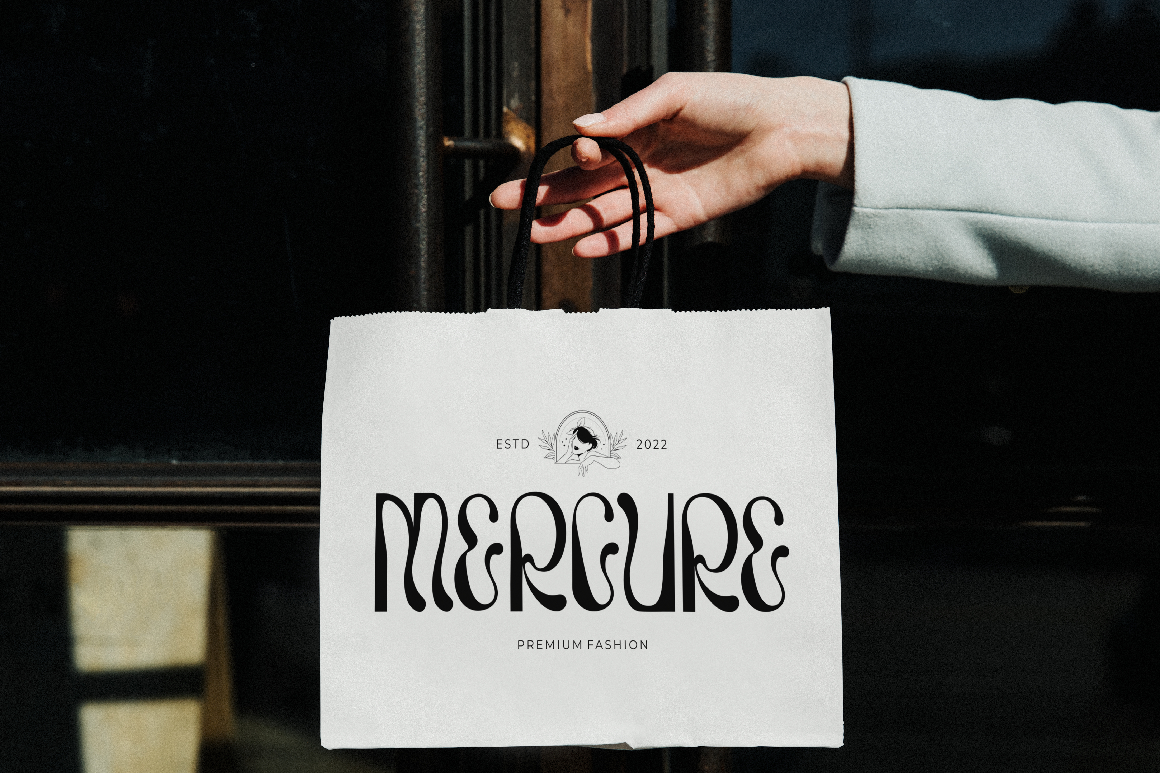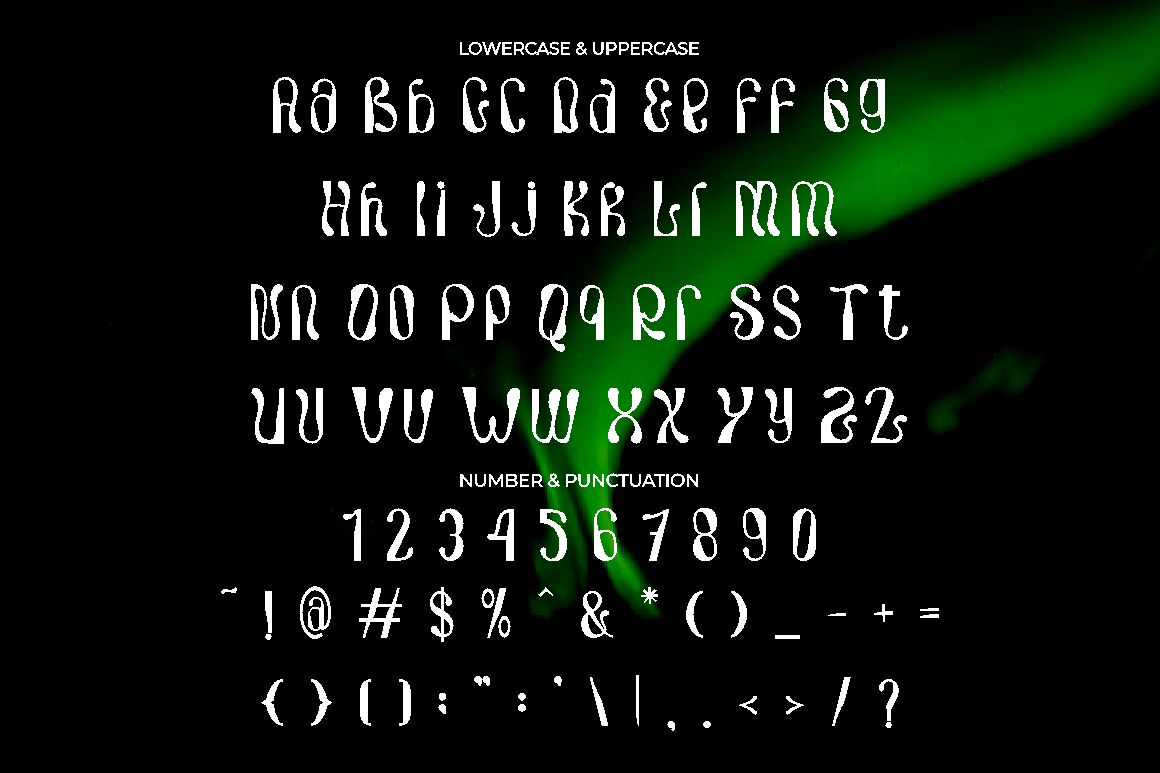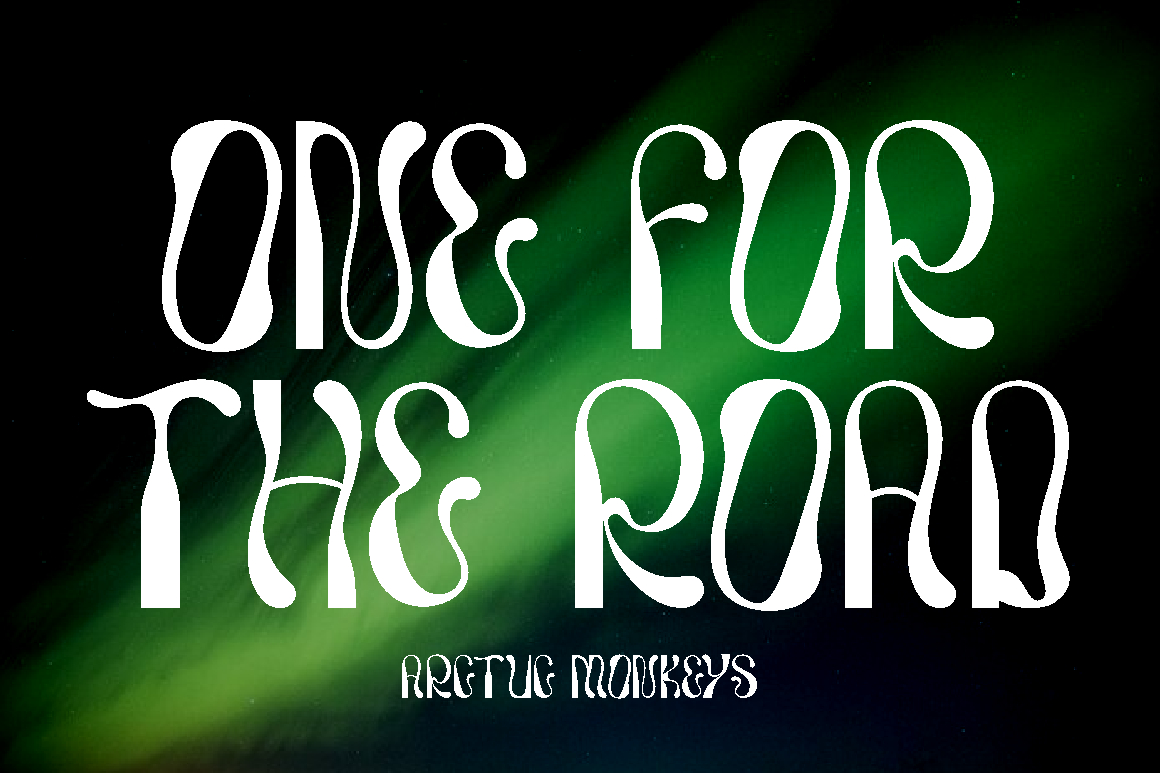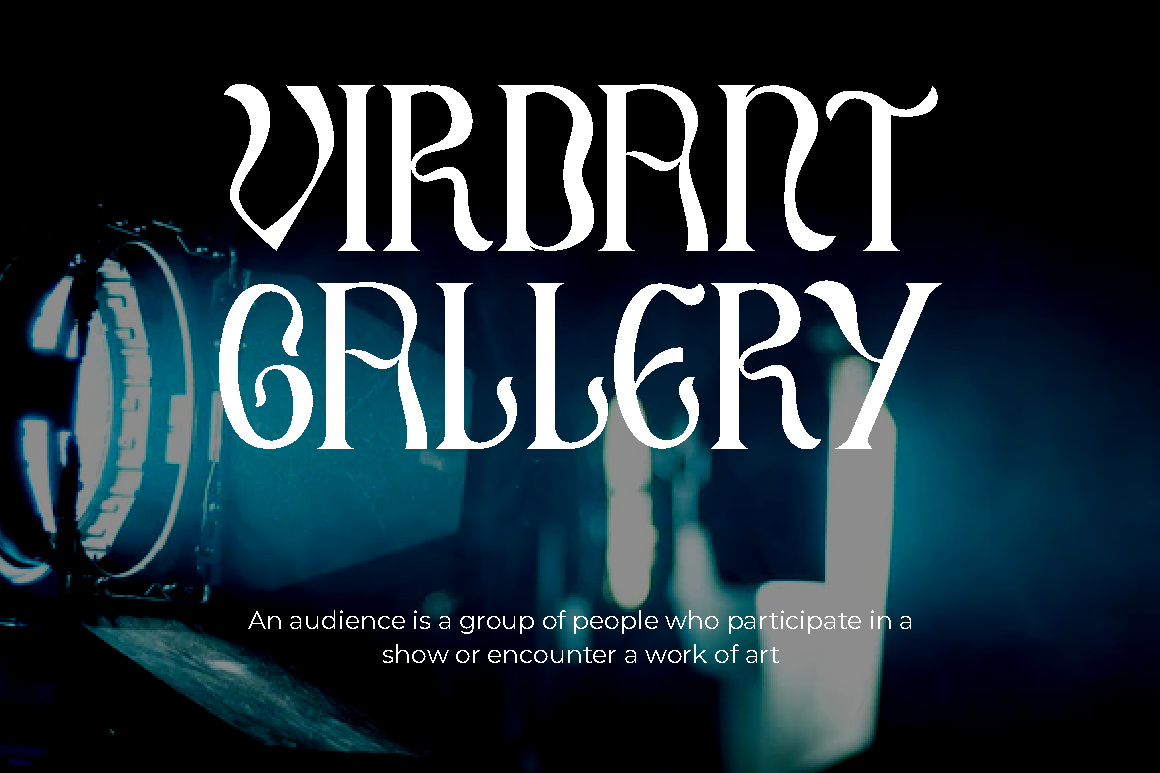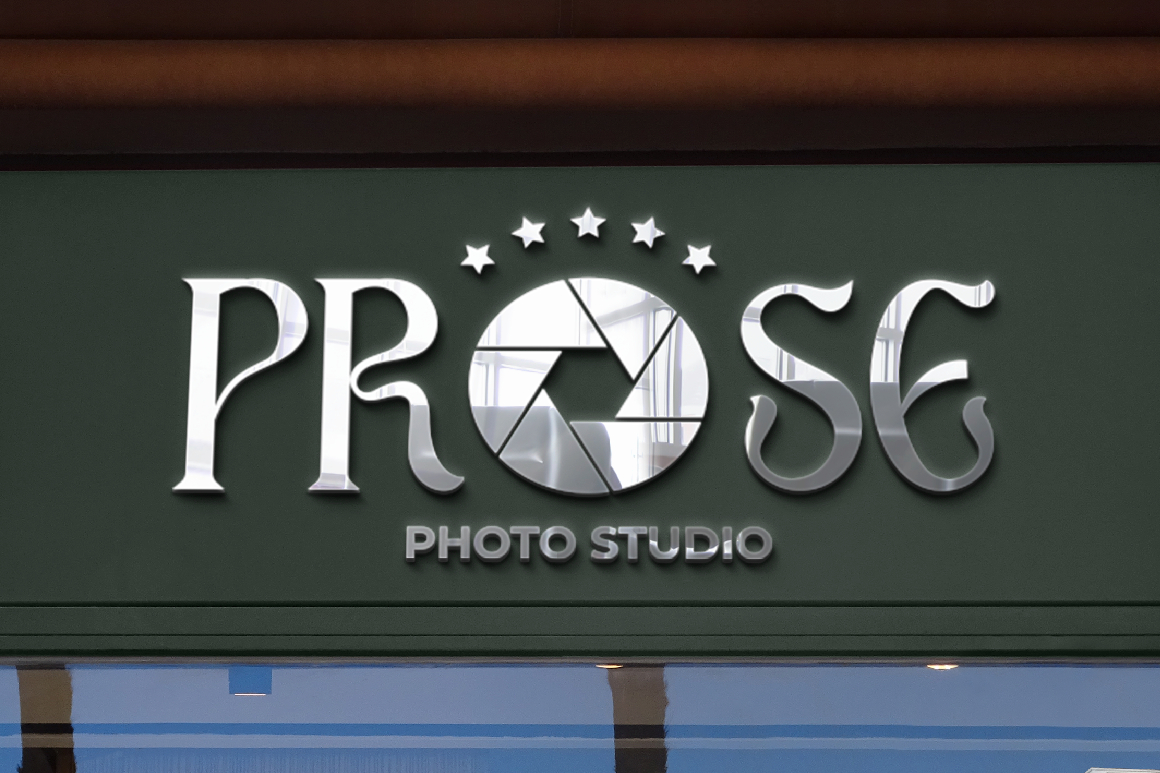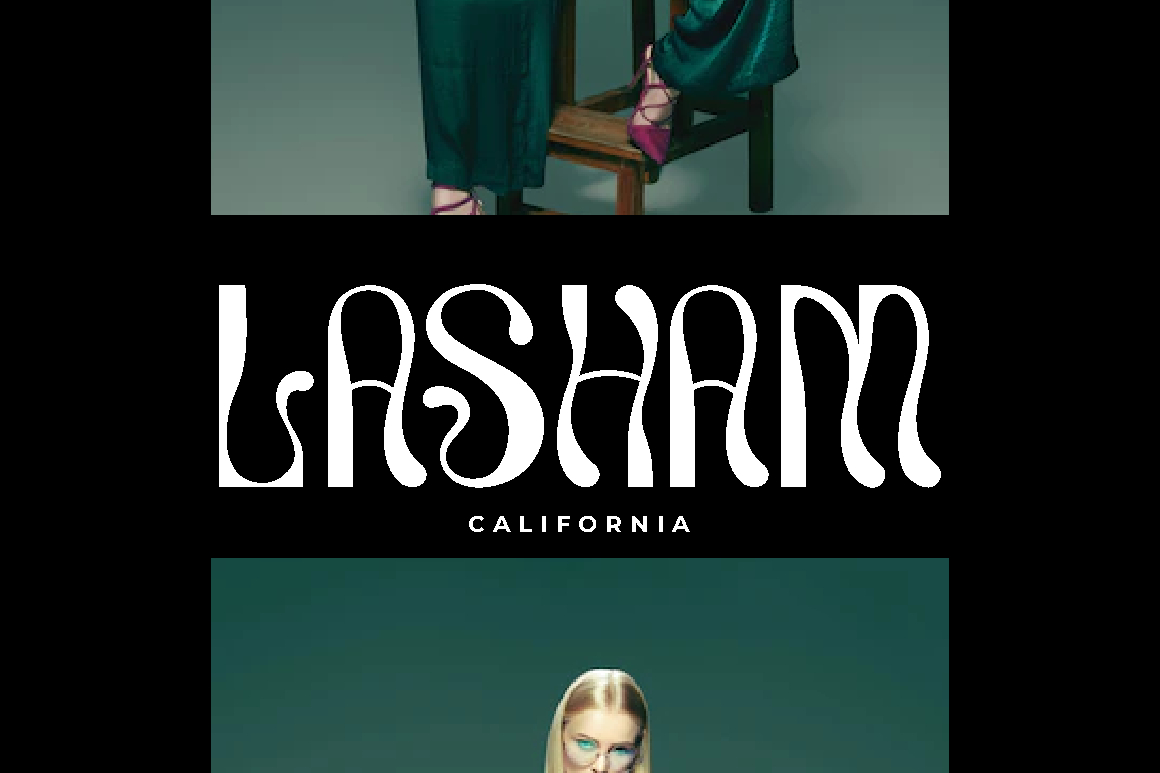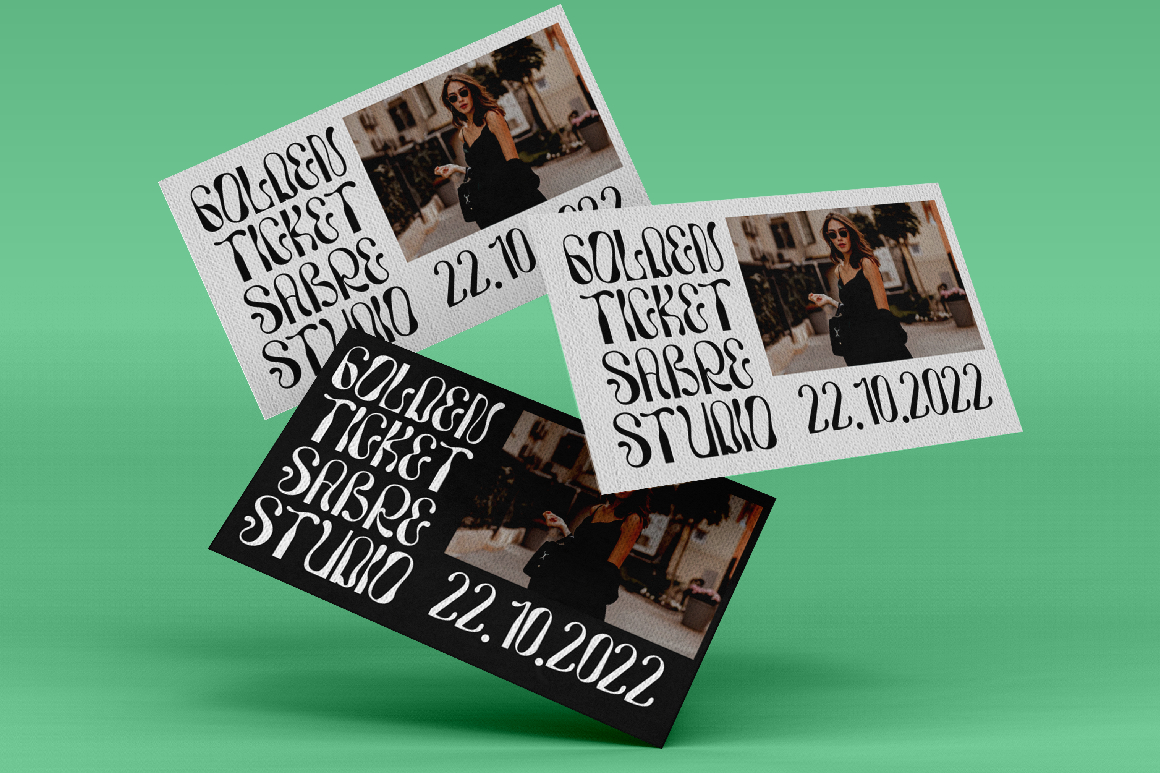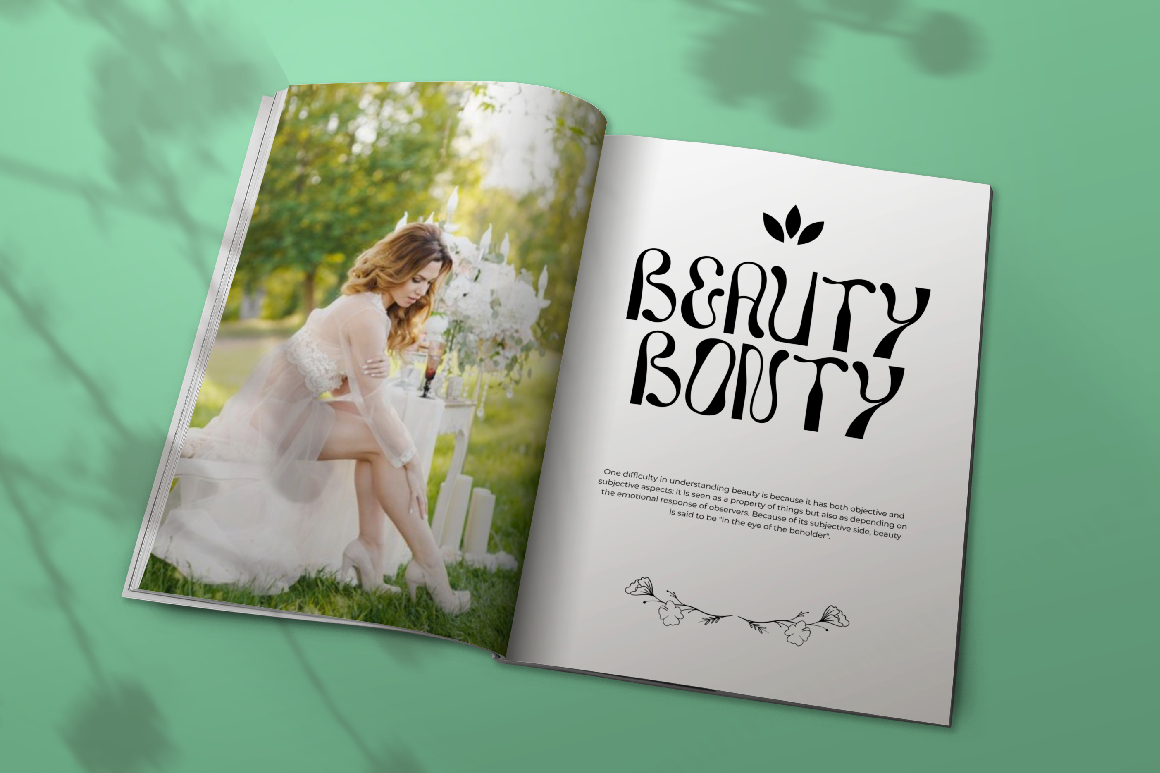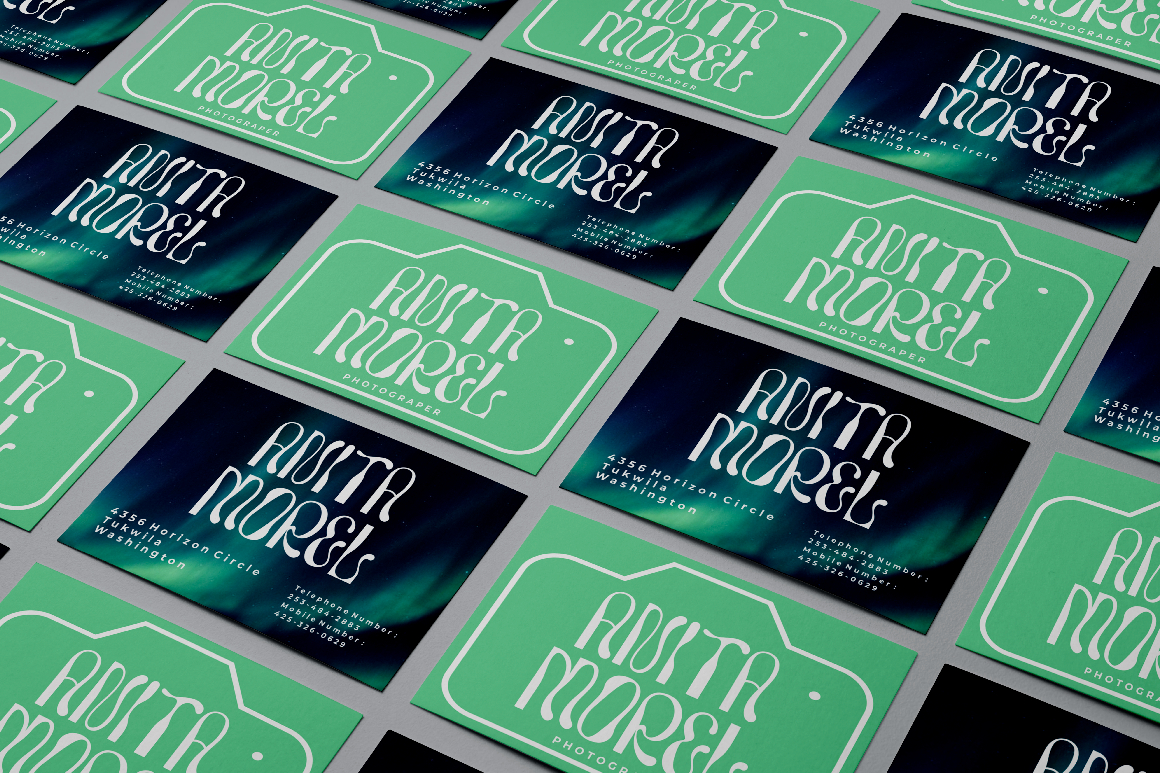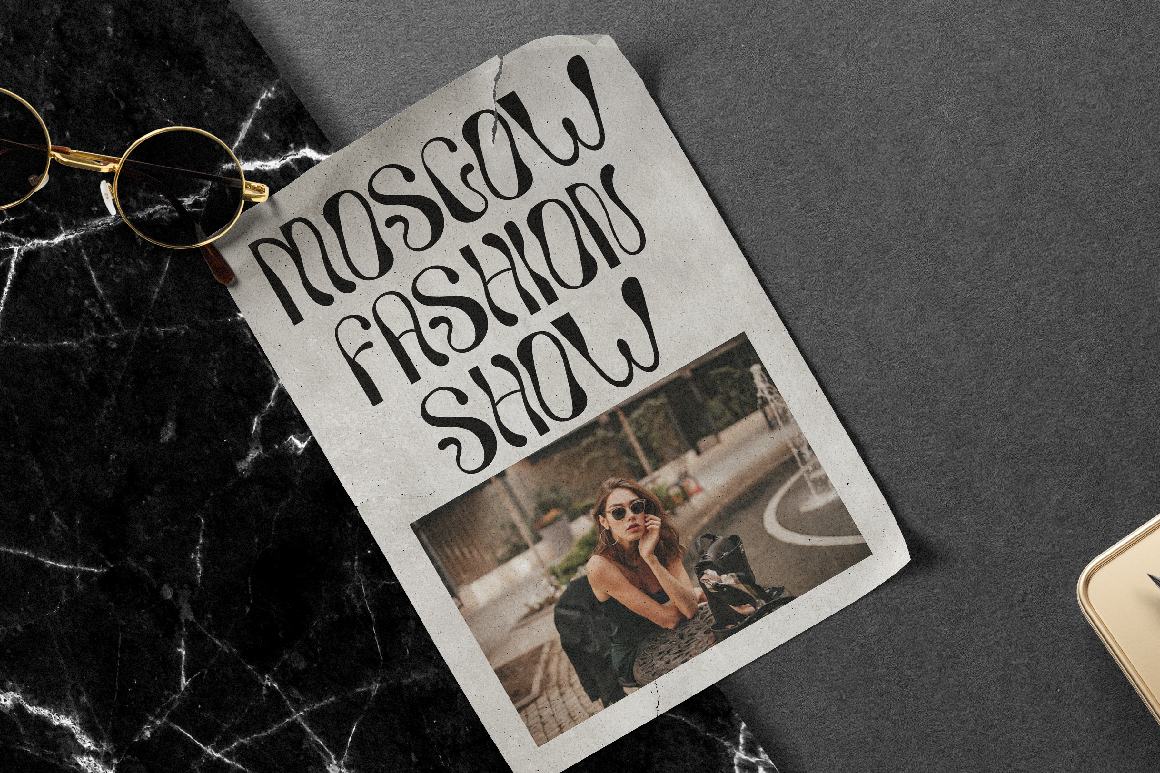
Introducing Superia Aurora Display Font
Superia Aurora is a stunning display font designed by PutraCetol Studio. Its modern and unique design is perfect for branding, advertising, and other design projects that require a bold and eye-catching look.
With its sharp edges and stylish curves, Superia Aurora is sure to make a statement. Its uppercase and lowercase letters are well-proportioned and balanced, making it versatile for various design applications.
Superia Aurora is an excellent choice for designers who want to make a bold statement with their designs. Its modern and sleek design is perfect for various design applications, including posters, logos, and branding materials. Pair it with a sans-serif font like Roboto or Helvetica for a clean and professional look.